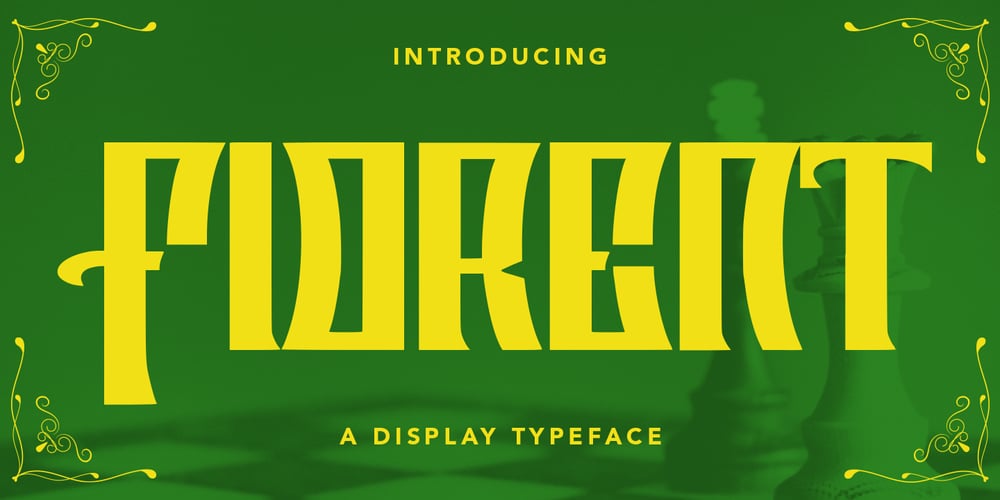
MC Fiorent Font Family was designed by Gilang Maulana and published by Maulana Creative. MC Fiorent contains 1 styles and family package options. Fiorent is a modern Decorative Display font. Bold stroke, fun character with a bit of ligatures and alternates. To give you an extra creative work. Fiorent font support multilingual more than 100+ language. This font is good for logo design, Social media, Movie Titles, Books Titles, a short text even a long text letter and good for your secondary text font with script or serif. Make a stunning work with Fiorent font.Cheers, Maulana Creative